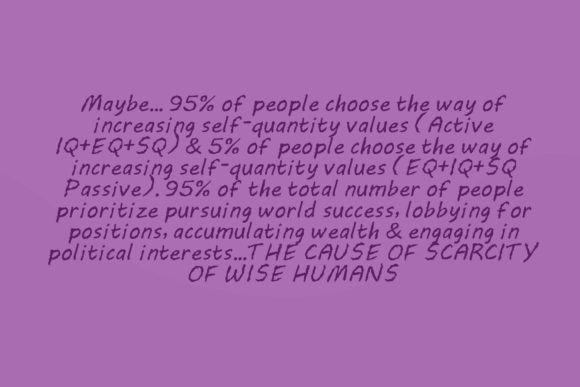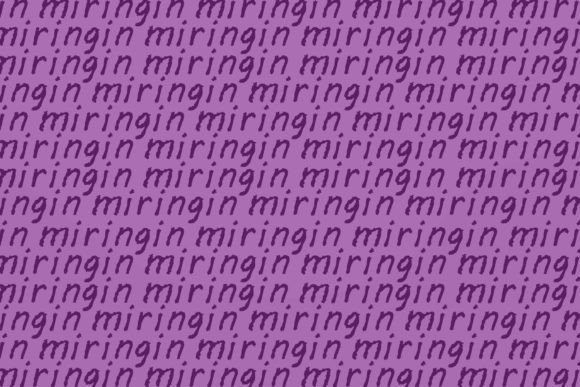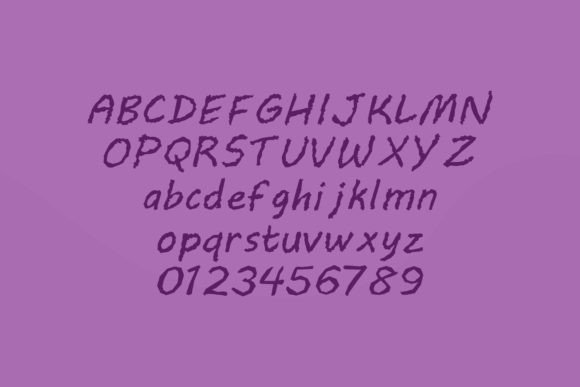
Introduction to Miringin Font
Have you ever stumbled upon a font that makes you smile? For designers, finding the perfect font can be a game-changer. It’s that one moment when all the pieces come together, and your creative project takes off. For me, that moment came when I discovered the Miringin Font. Its quirky, handwritten charm instantly sparked an idea for a new design project.
The Miringin Font is a high-quality, free download that’s perfect for adding a touch of personality to your designs. Its transparent background makes it easy to layer and combine with other design elements, giving you endless possibilities for creative expression. As a valuable design resource, the Miringin Font is a must-have for any designer looking to add a unique touch to their work.
Key Features of Miringin Font
- High-quality, free font for download, ideal for creative projects and design resources
- Unique, elegant design with a transparent background, suitable for various design applications
- Includes a range of font sizes and styles, from 12 to 72 points, to cater to diverse design needs
- Resolution-independent design ensures crisp and clear display on various devices and screen resolutions
- Designed for use in digital and print media, including web design, graphic design, and publishing
- Comes with a comprehensive character set, supporting various languages and special characters
Honest Review: Miringin Font
I recently had the chance to work with the Miringin Font for a creative project, and I must say it’s been a pleasant experience. The font is a free download, making it a great design resource for anyone looking to add some flair to their project without breaking the bank.
One of the things that stood out to me was the high quality of the font. It’s clean, modern, and works beautifully in a variety of contexts. I particularly liked using it for headings and titles, as the bold lines and subtle curves really make it pop. ✨
Here are a few of my favorite features of the Miringin Font:
- Transparent background, making it easy to layer over images and backgrounds
- High-quality vector design, ensuring it scales well for any project
One thing to be aware of is that the font may not be suitable for very small text sizes, as the bold lines can become a bit overwhelming. ⚠️ However, for the most part, I found the Miringin Font to be a great choice for my design project.
Overall, I’m really impressed with the Miringin Font, and I’d definitely recommend it to anyone looking for a high-quality, free design resource.
Getting the Most Out of Miringin Font
For the best results, use Miringin Font with a transparent background to create a seamless design. Experiment with different font sizes, colors, and styles to find the perfect combination for your creative project.
The Miringin Font is ideal for designing logos, icons, graphics, presentations, and documents. Its high-quality design and transparent background make it a valuable design resource for any creative project.